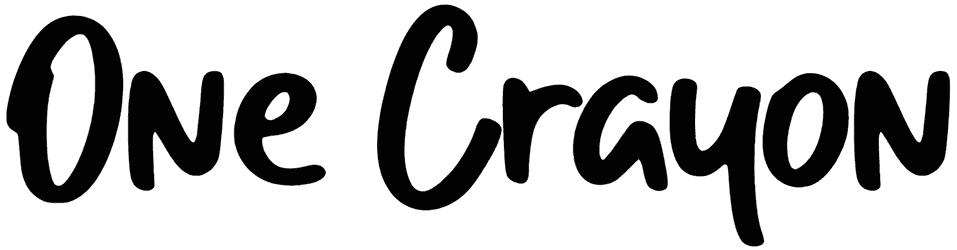
One Crayon Font
The One Crayon may be an excellent choice if you are looking for a well-designed font. This marker font has a popular style that seems entertaining to the viewers.
The One Crayon font may help you with various cases, such as postcards, flyers, and book covers. This handwritten font’s letters have a curly shape with rounded edges, which sends a friendly vibe. So take this brilliant font and create an enjoyable experience for your audience.